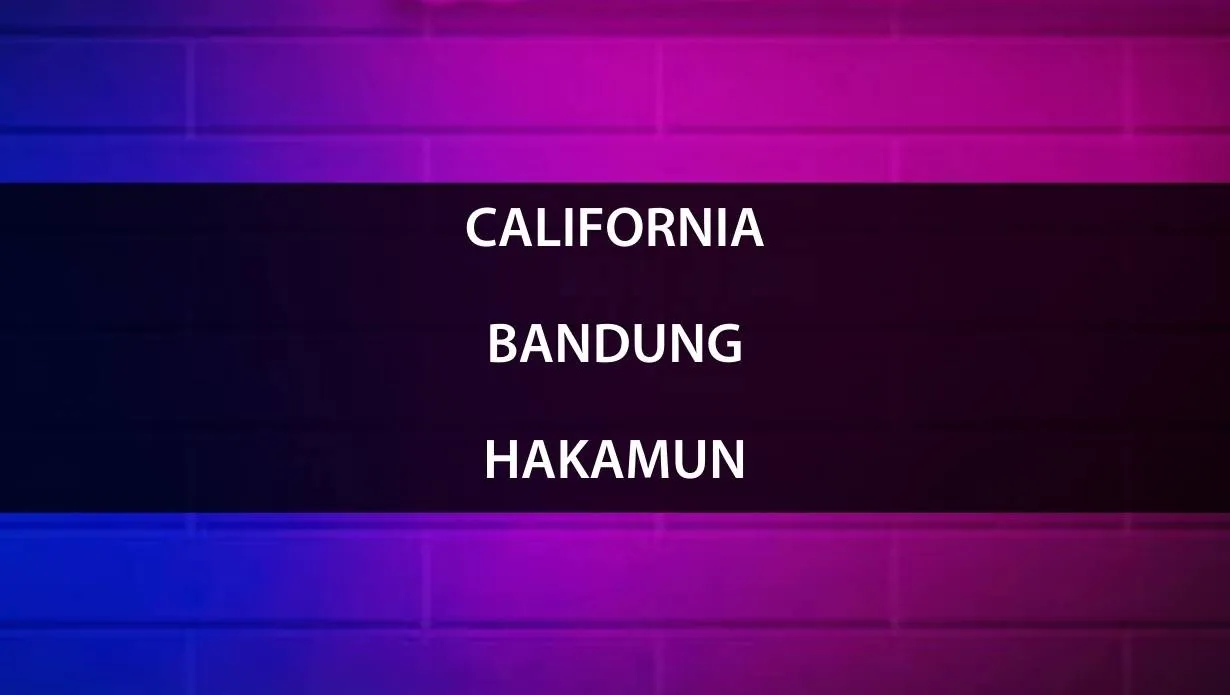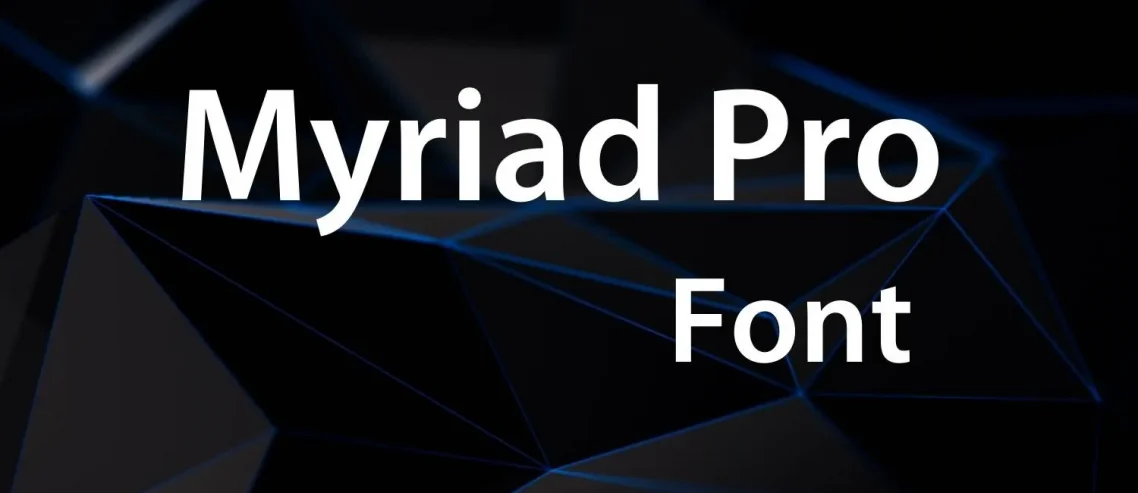
The Myriad Pro font, created by Robert Slimbach and Carol Twombly for Adobe Systems, is a popular sans-serif typeface released in 1992. It is commonly employed in corporate branding, advertising, and various printed materials.
Myriad Pro is available in a variety of weights and styles, making it a versatile choice for many design projects. It has a lovely texture style and has a pairing personality with other elegant style typefaces just like Calibri font.
Myriad Pro Font Info
| Name | Myriad Pro Font |
| Designer | Robert Slimbach |
| Style | Sans-serif |